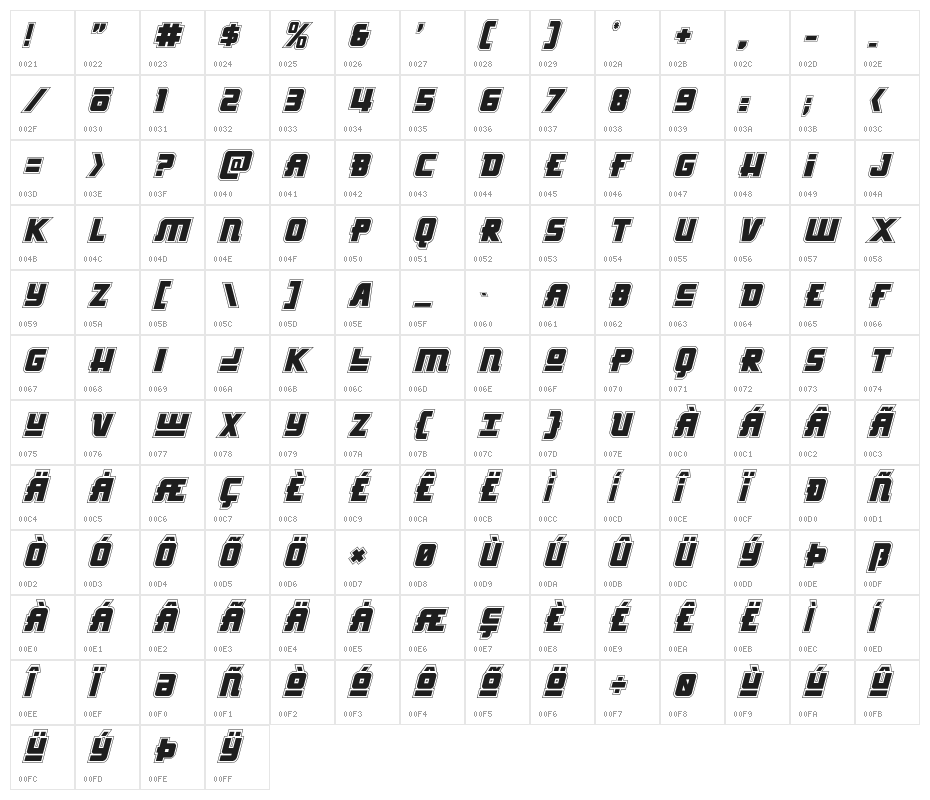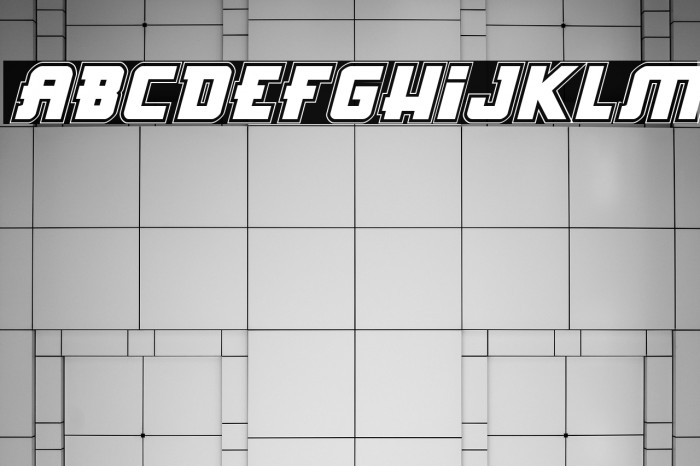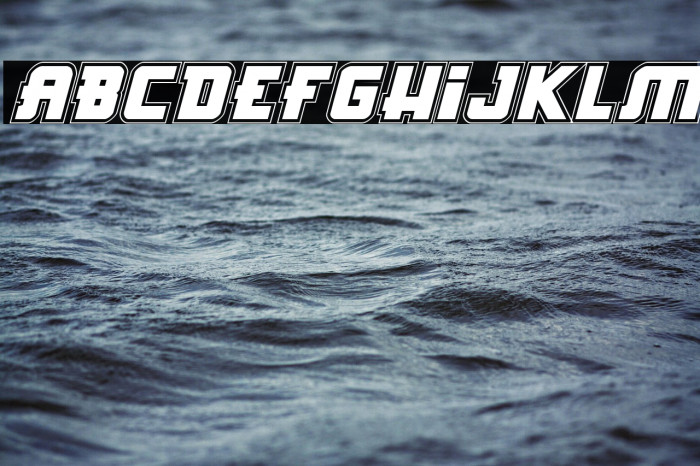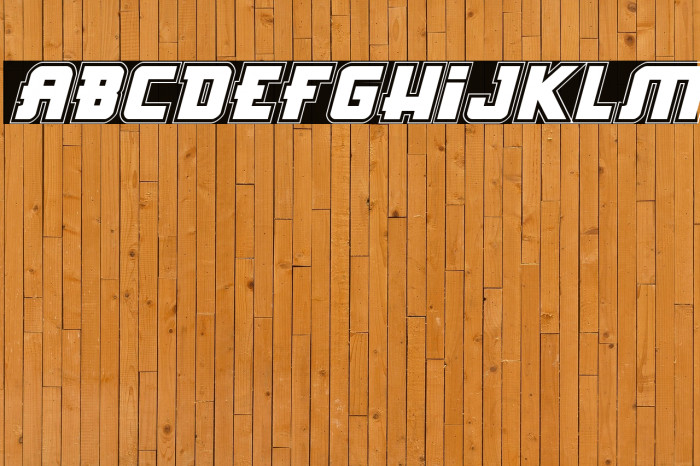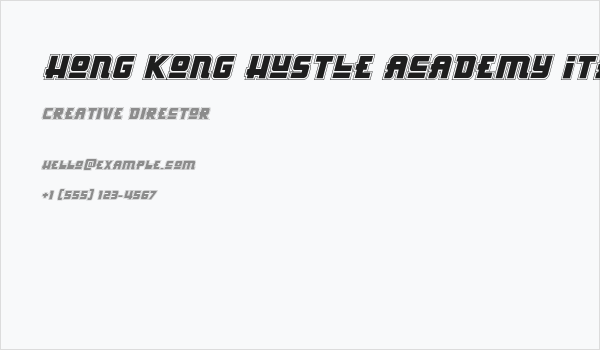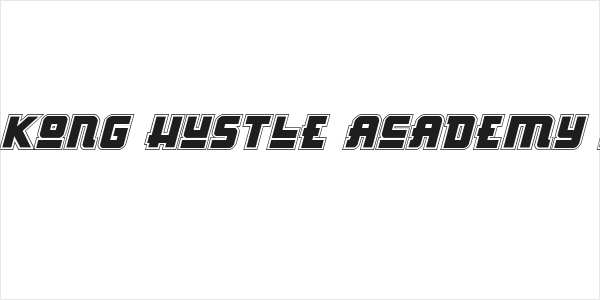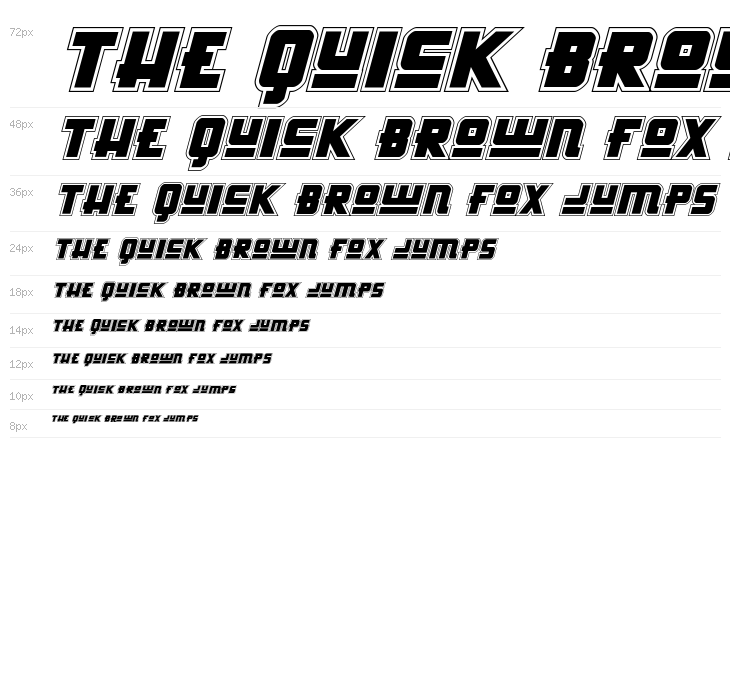
Hong Kong Hustle Academy Italic Font
Hong Kong Hustle Academy Italic Description
This font features a bold, dynamic style with a strong presence. The characters are designed with a thick outline and a shadow effect, giving them a three-dimensional appearance. The angular and geometric shapes of the letters convey a sense of movement and energy, making it suitable for attention-grabbing designs. The uppercase and lowercase letters maintain a consistent style, with a slight italic slant that enhances the font's modern and edgy look. The numbers and special characters are equally bold and stylized, ensuring uniformity across all text elements.
| Proposed Projects | Ideal for posters, logos, sports branding, and any project requiring a strong, impactful visual presence. |